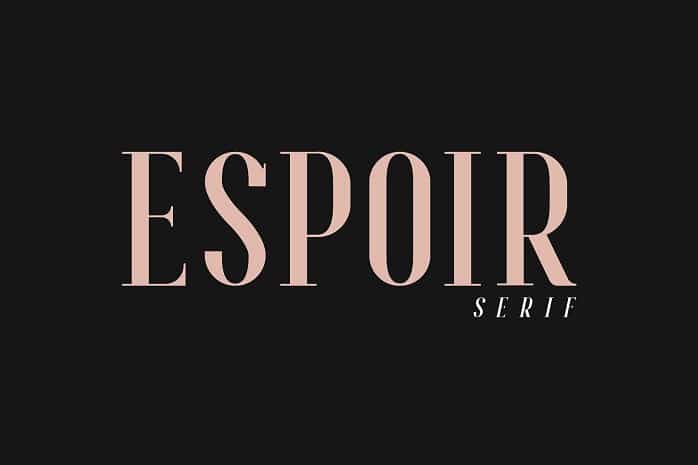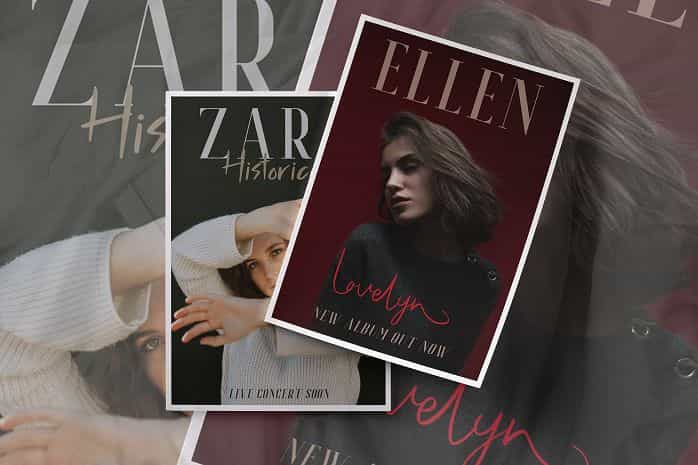
Espoir Serif Font Family is another modern serif font family whose design refers us to the style of transitional serifs. Such are the relatively low contrast of strokes, the slightly squarish shapes of round characters and their emphasized businesslike nature. However, the typeface turned out to be very original and having its own character. In the process of working on the Espoir Serif Font Family, we significantly revised the initial idea and expanded the areas of possible font application.